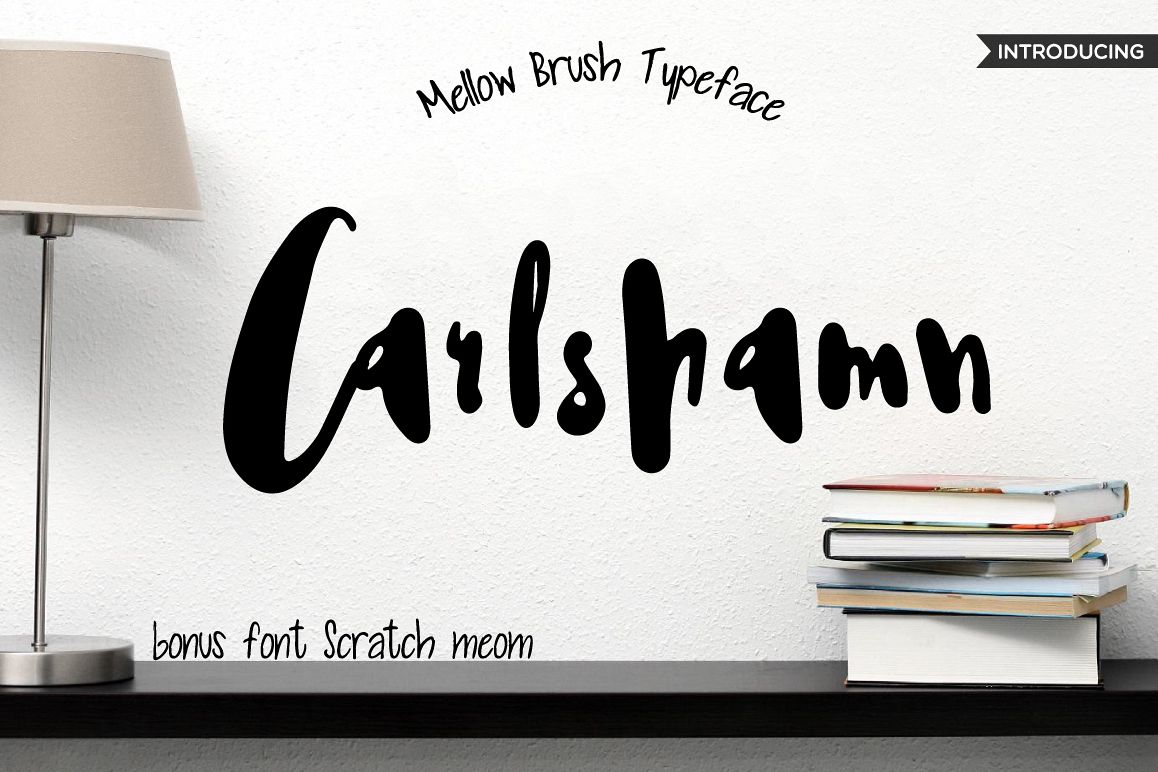
Carlshamn
Carlshamn Font + Bonus Font
It's hand lettered and modern display font and free font "Scratch Meom".Create your own design with this 2 font. Add this font on wedding invitation or notebook. Also with their help, you can create a logo or postcard. Or just use for your small business, book covers, stationery, marketing, posters.
Carlshamn Font and Scratch Meom Font